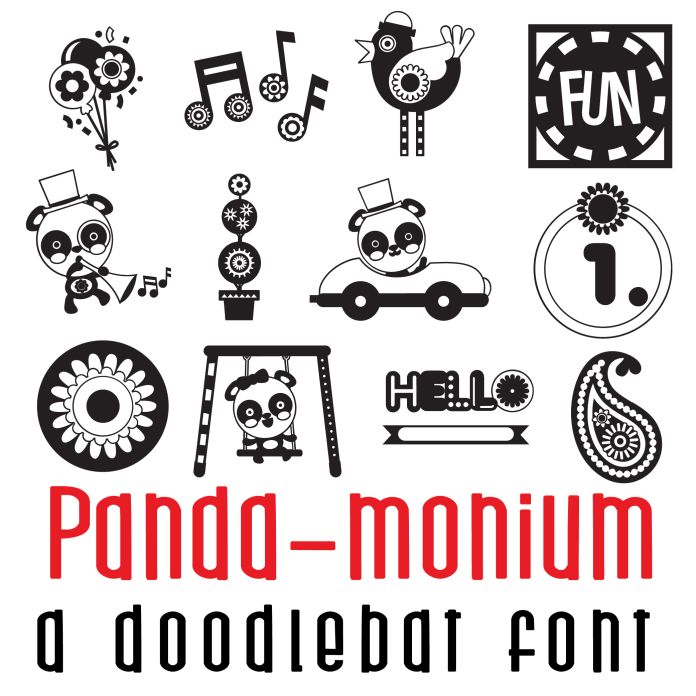
This doodlebat font features 26 adorable pandas celebrating life! Perfect for classrooms, teachers, gifts, decor, scrap book pages, planner stickers and more!